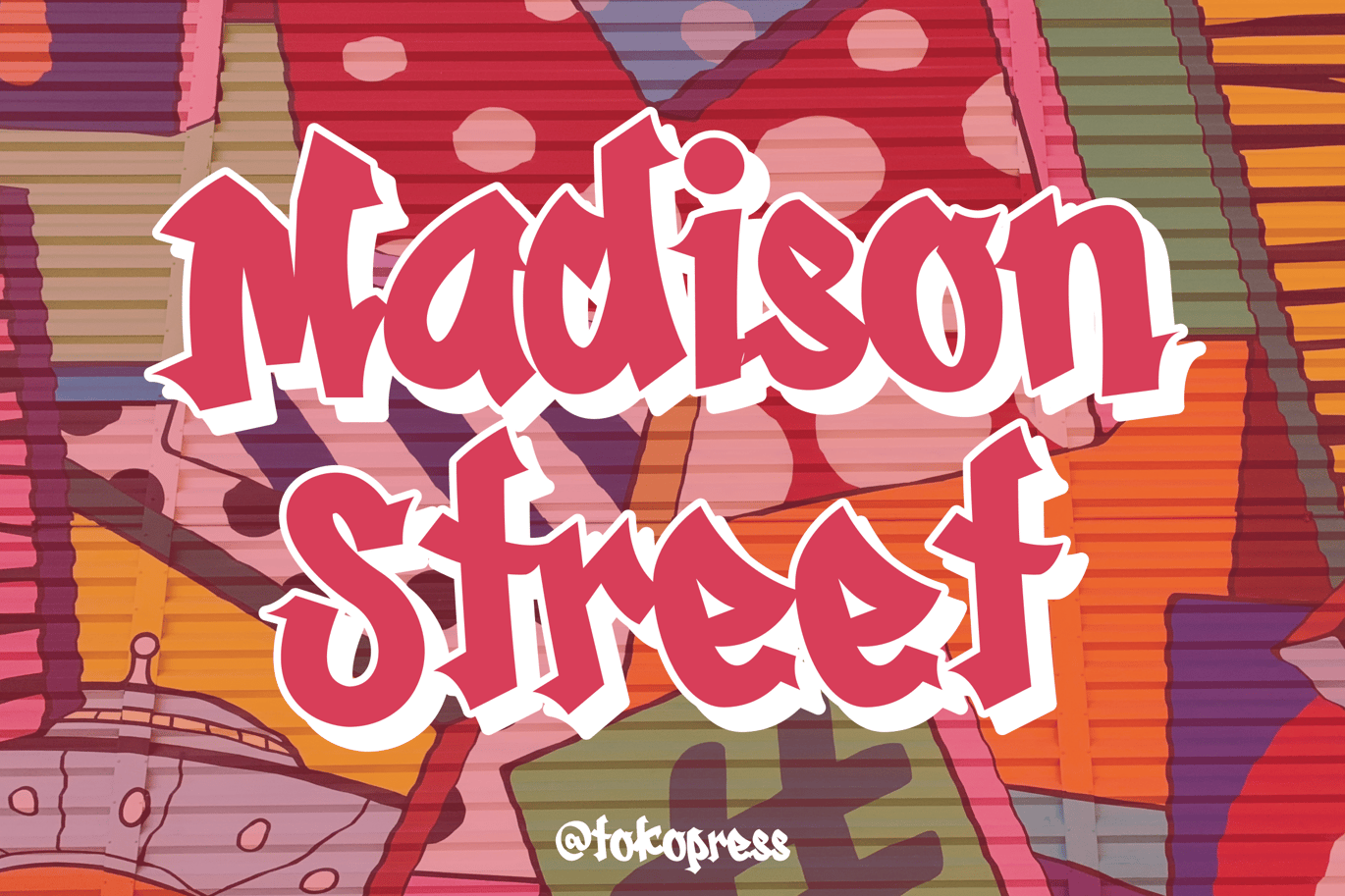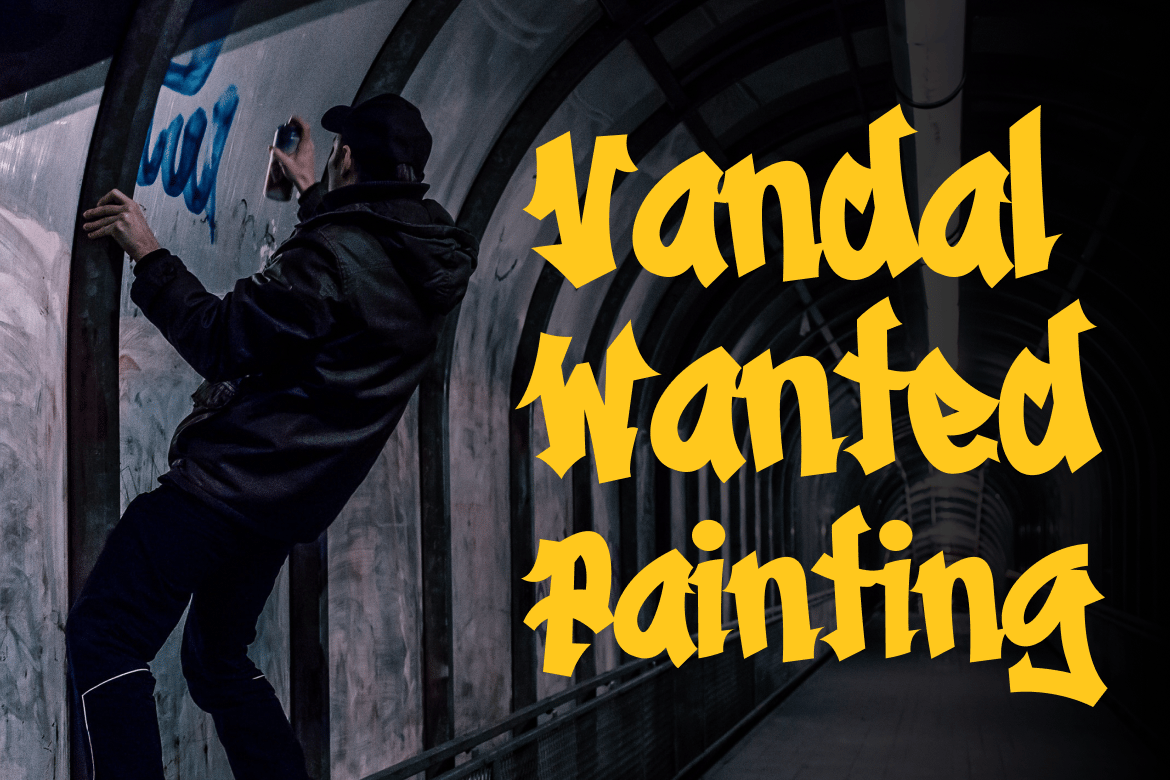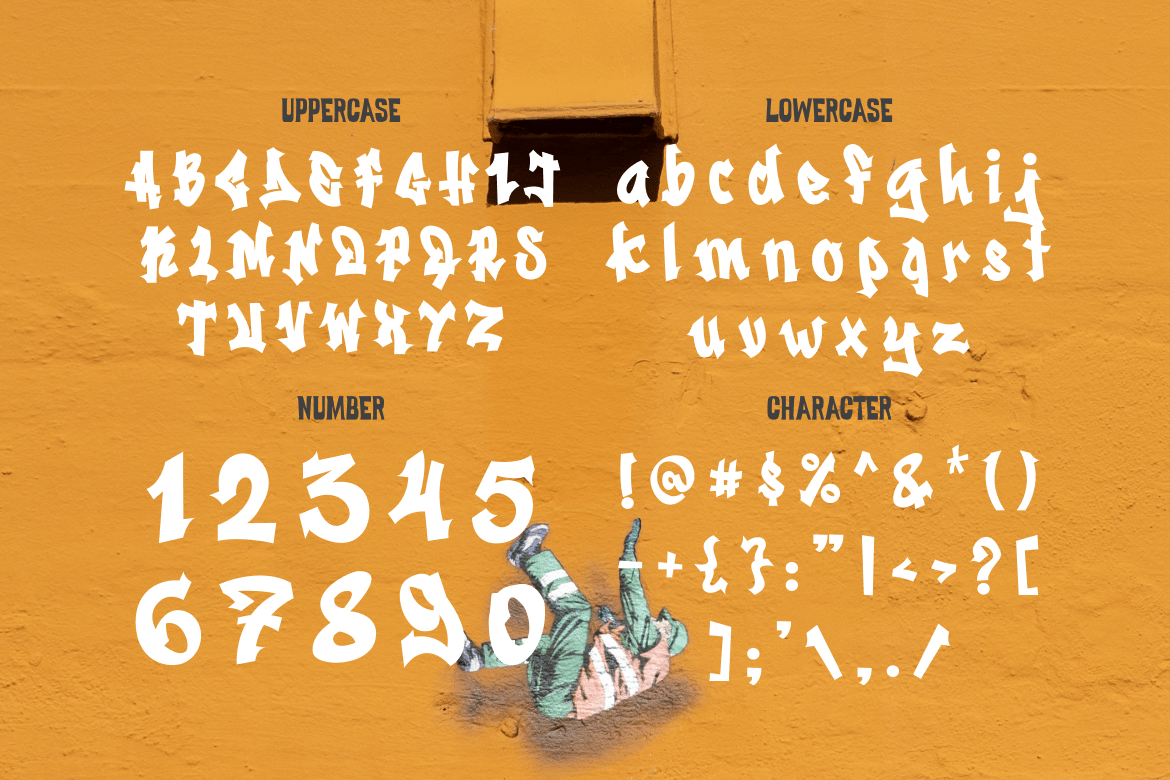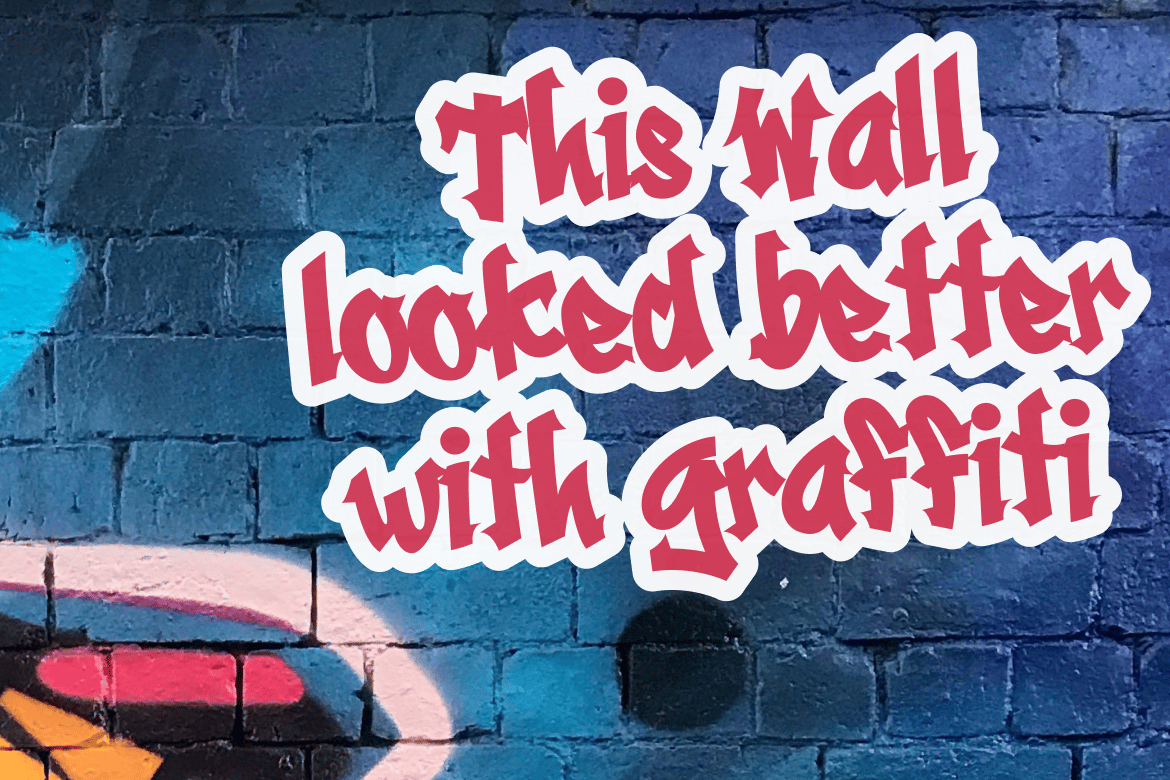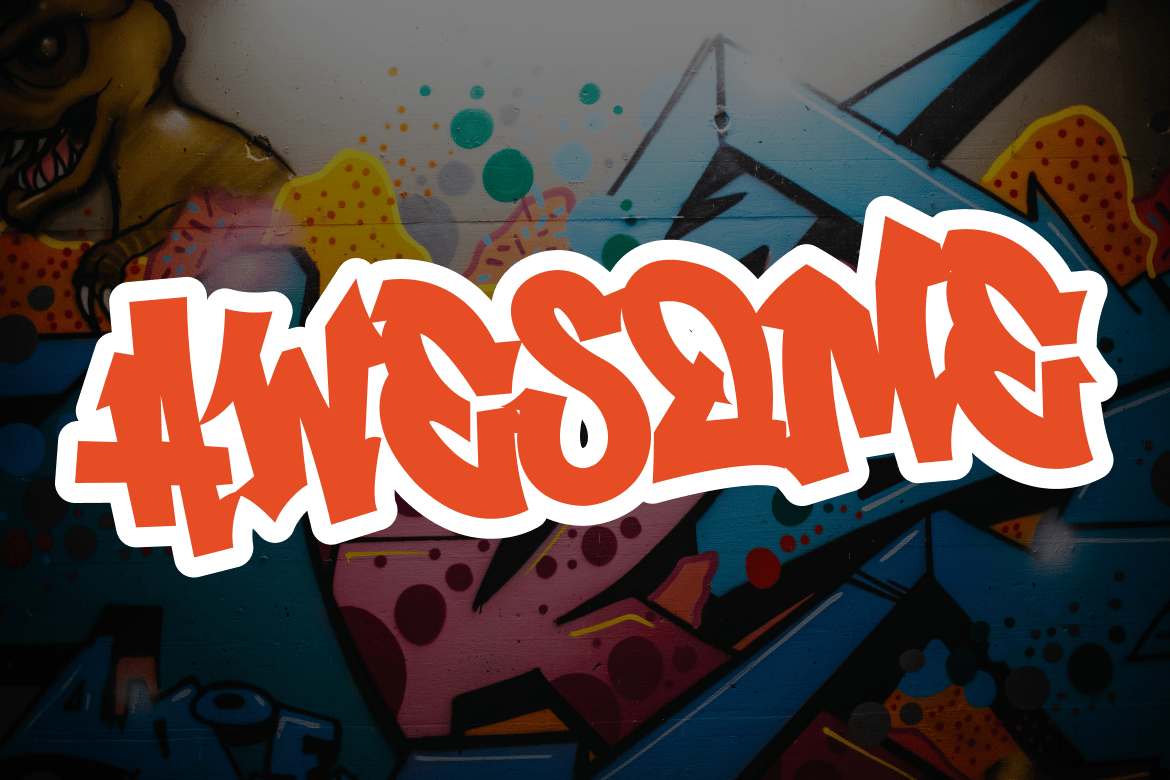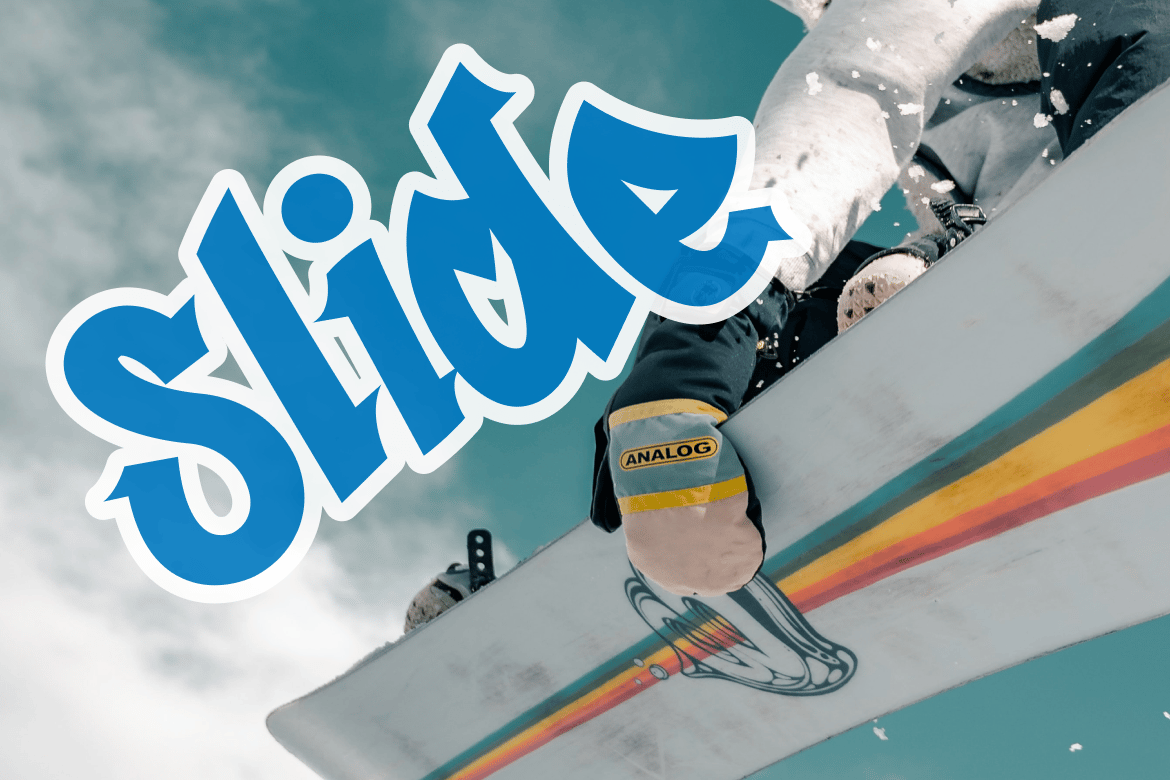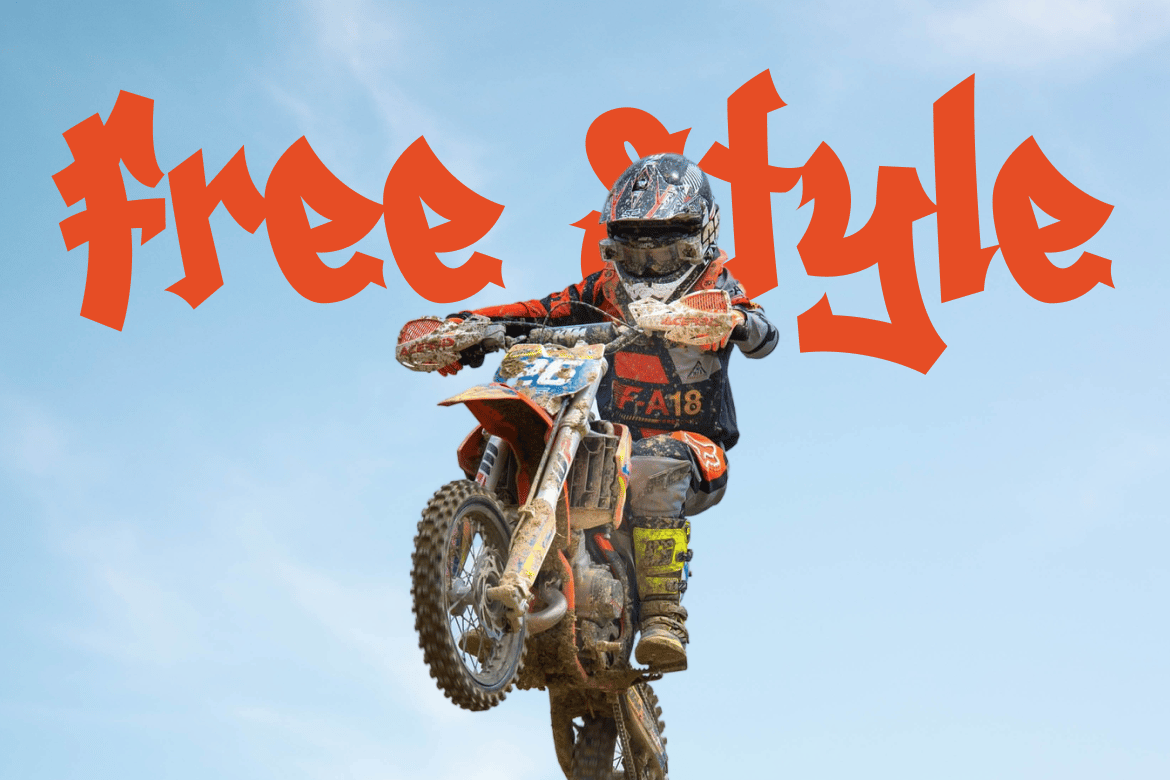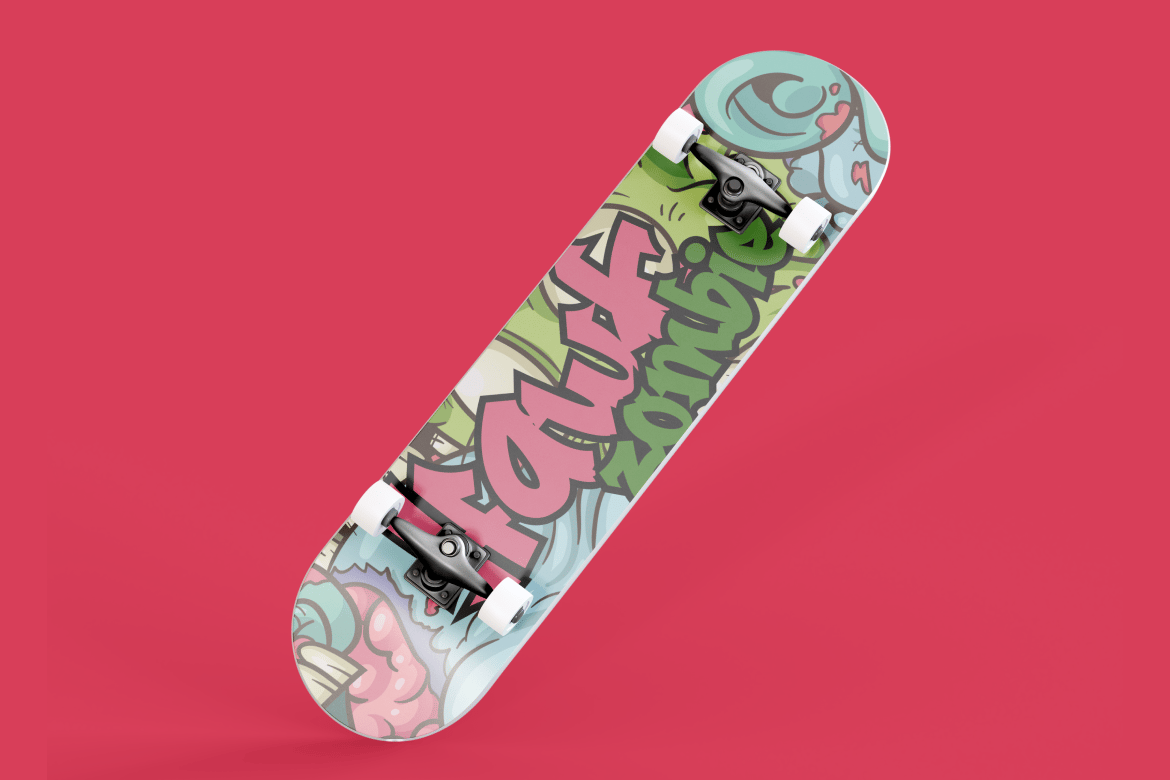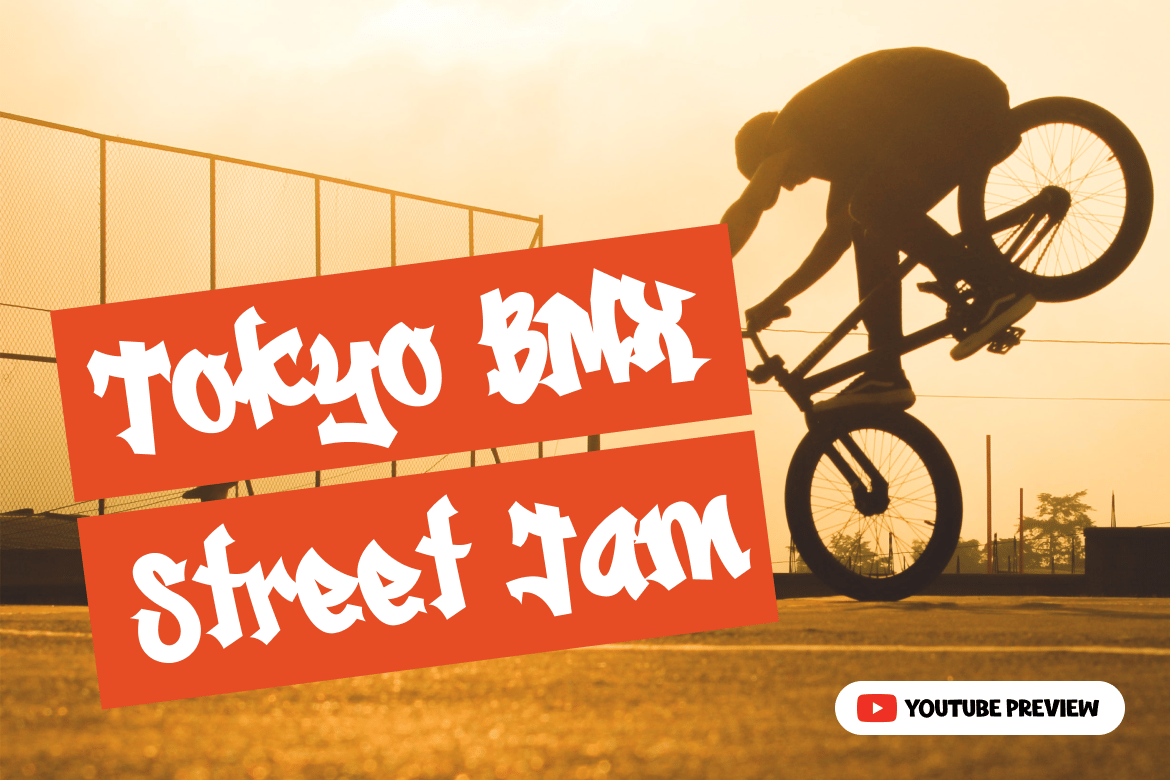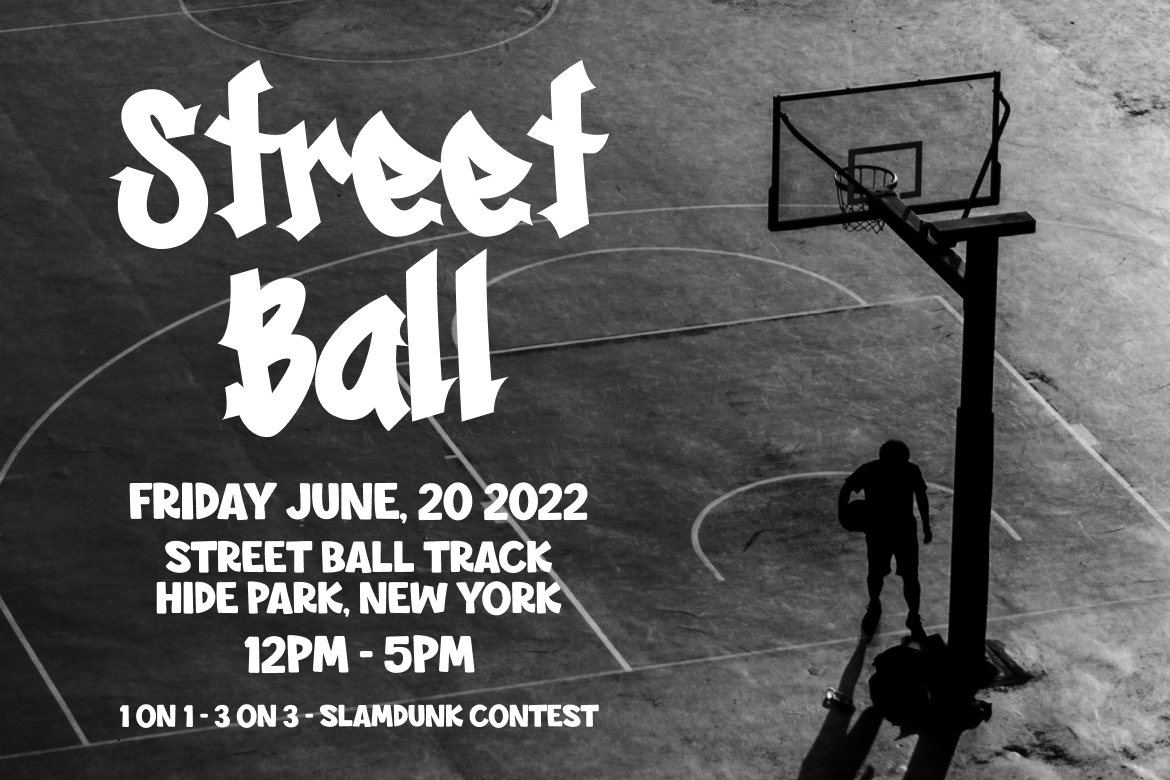
Madison Street – graffiti font
Madison Street- Graffiti font
Empty the can, spray it on the wall, along the Madison Street
Suit perfectly for hip-hop, rebelious and extreme sport segmented magazine, poster, movie title, music poster, youtube covers, youtube thumbnails, social media page covers and so on…